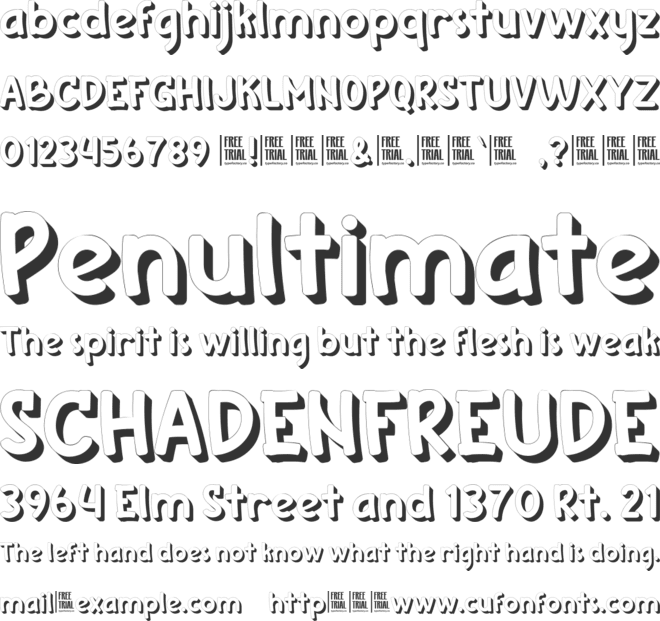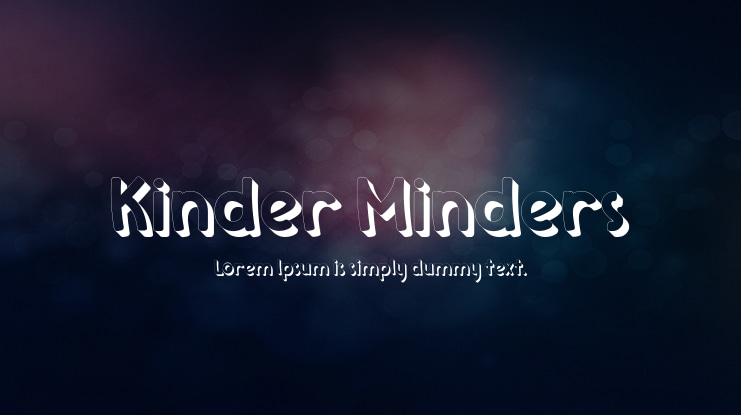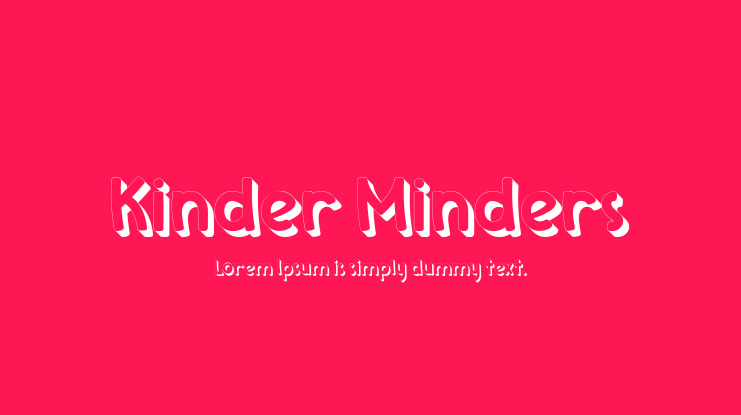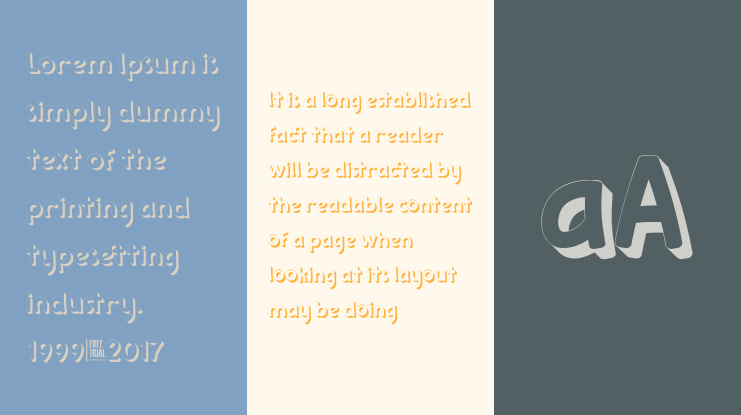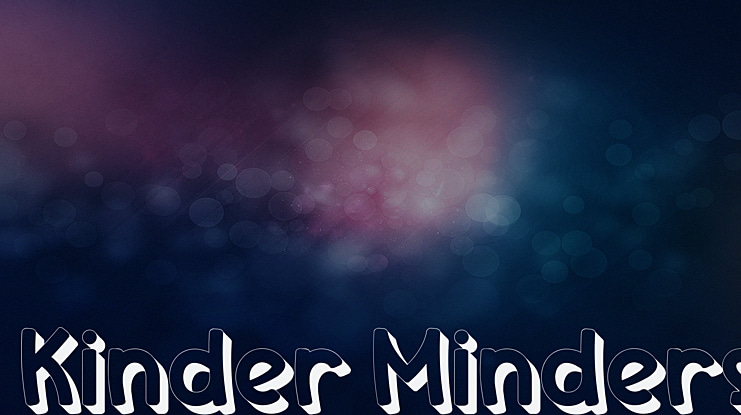
Kinder Minders Font
Kinder Minders is a playful comic font with unique style.
Get inspired by its unique charm, and turn any design project into a true standout!